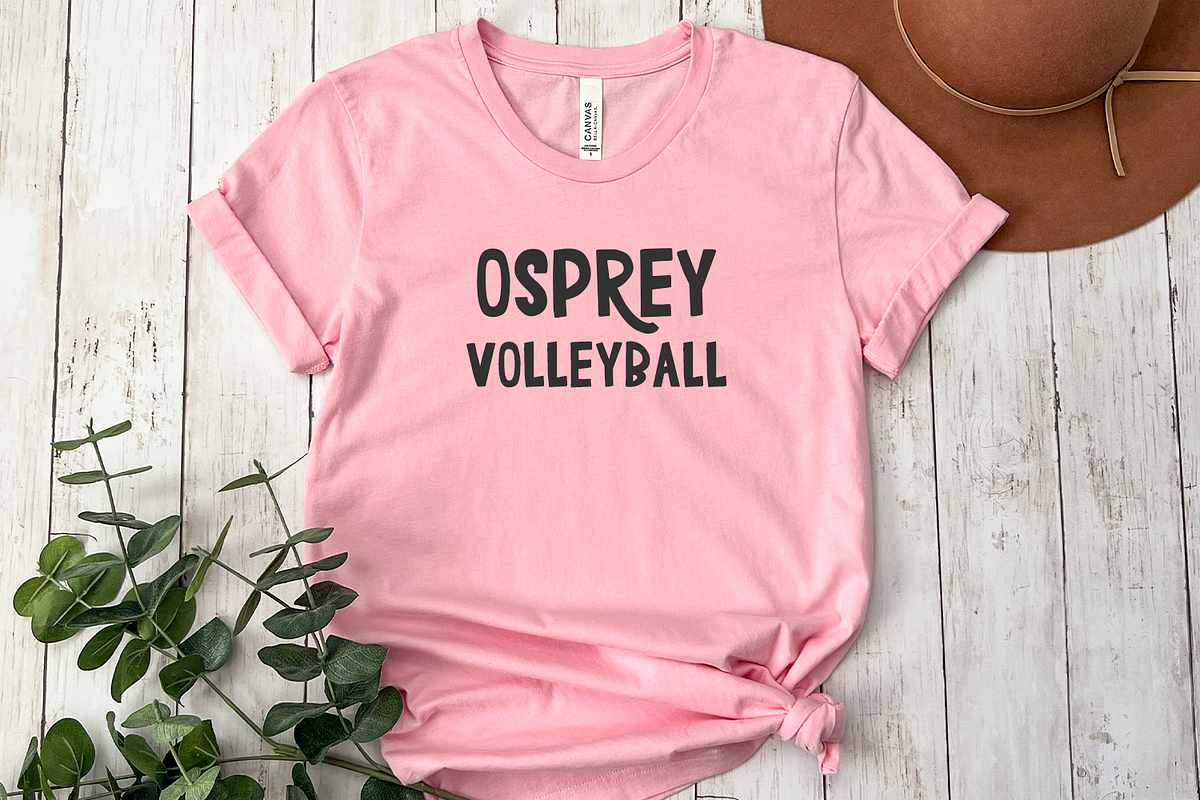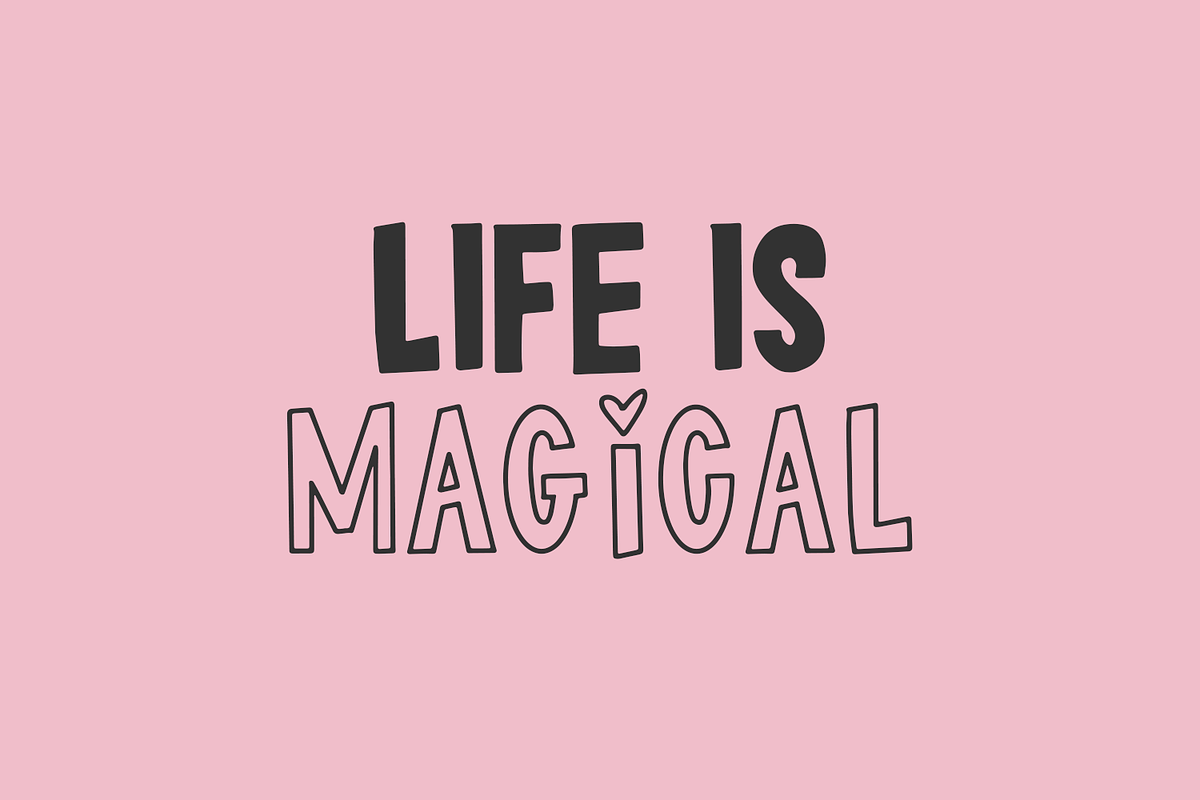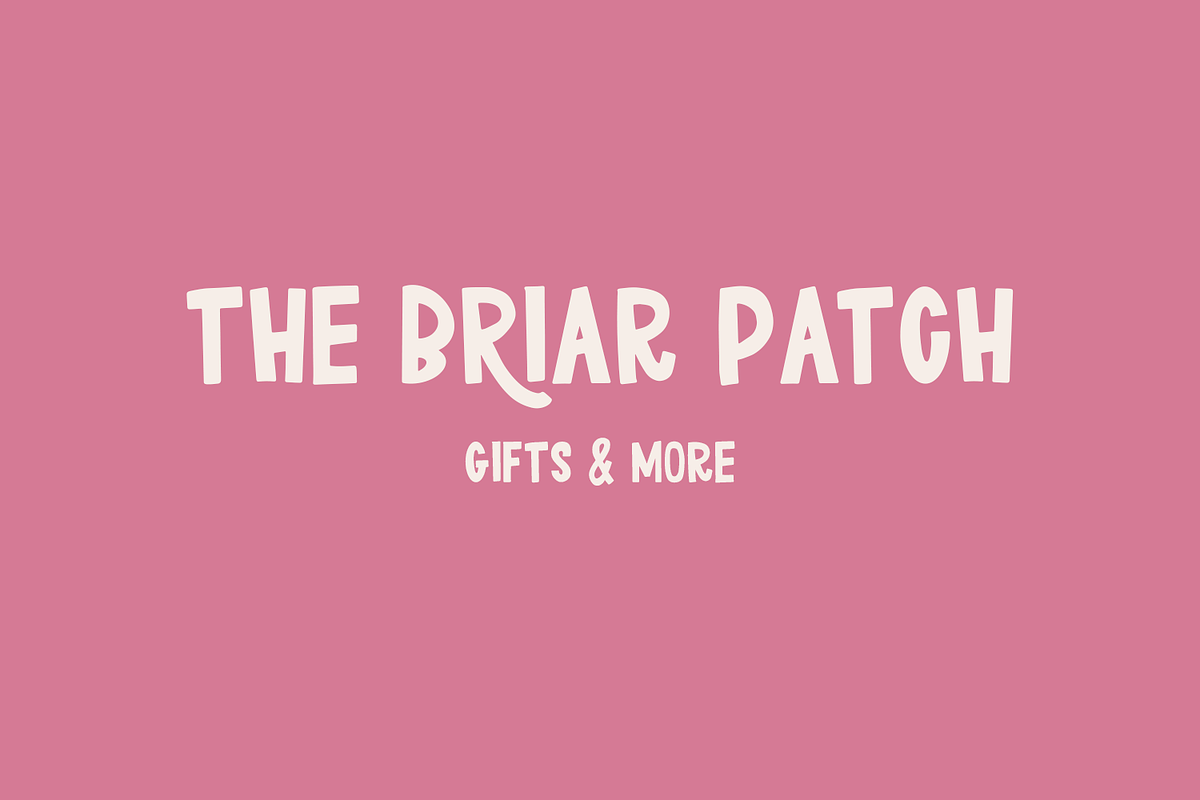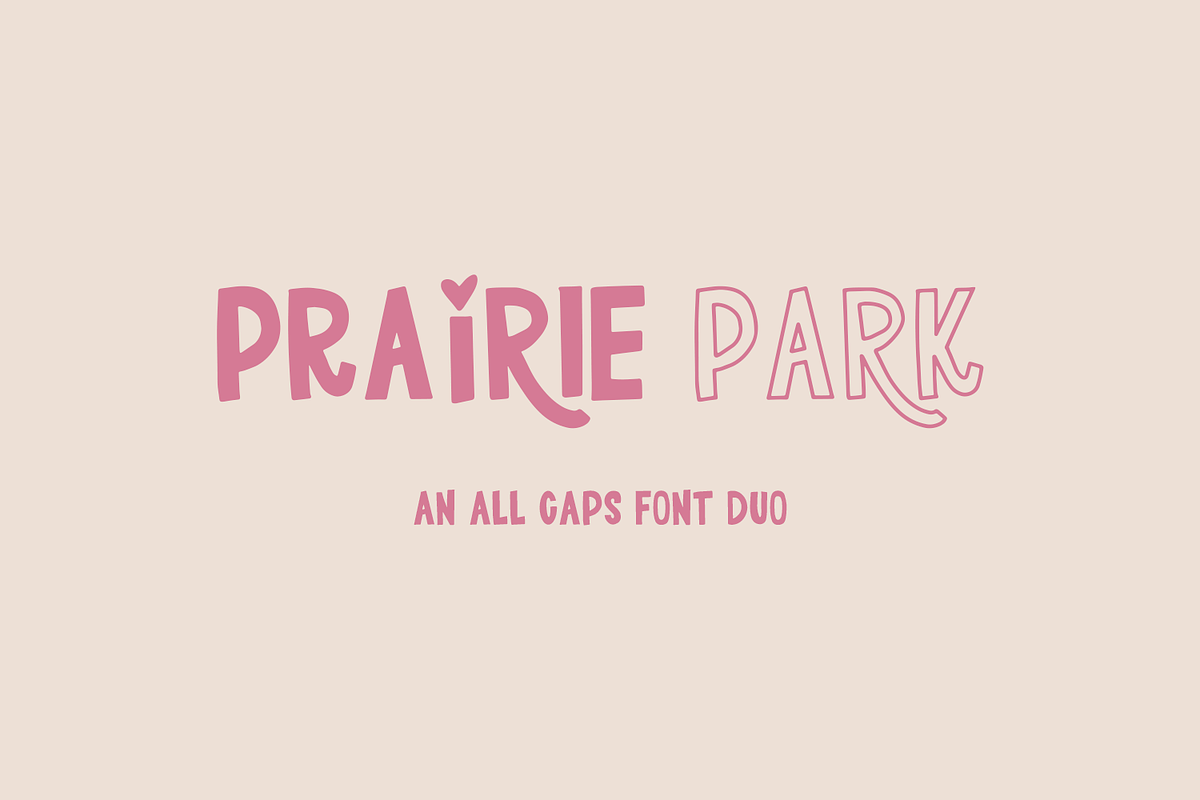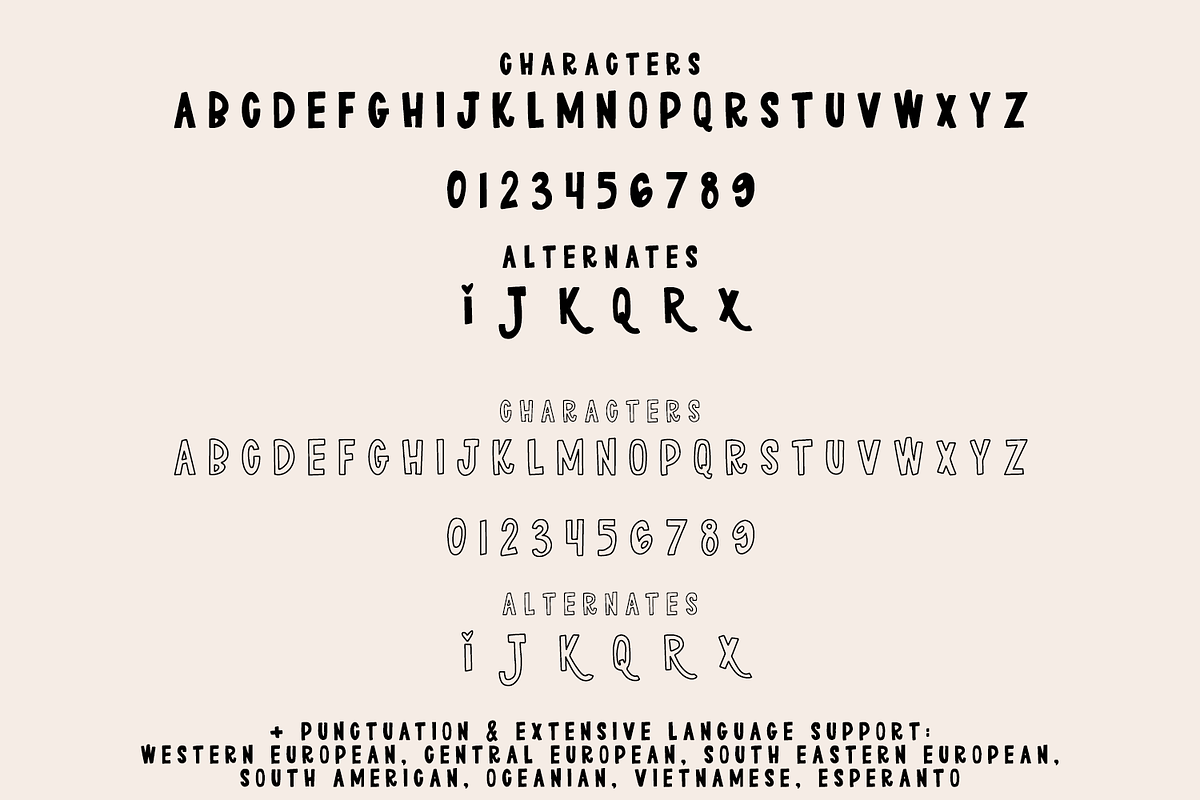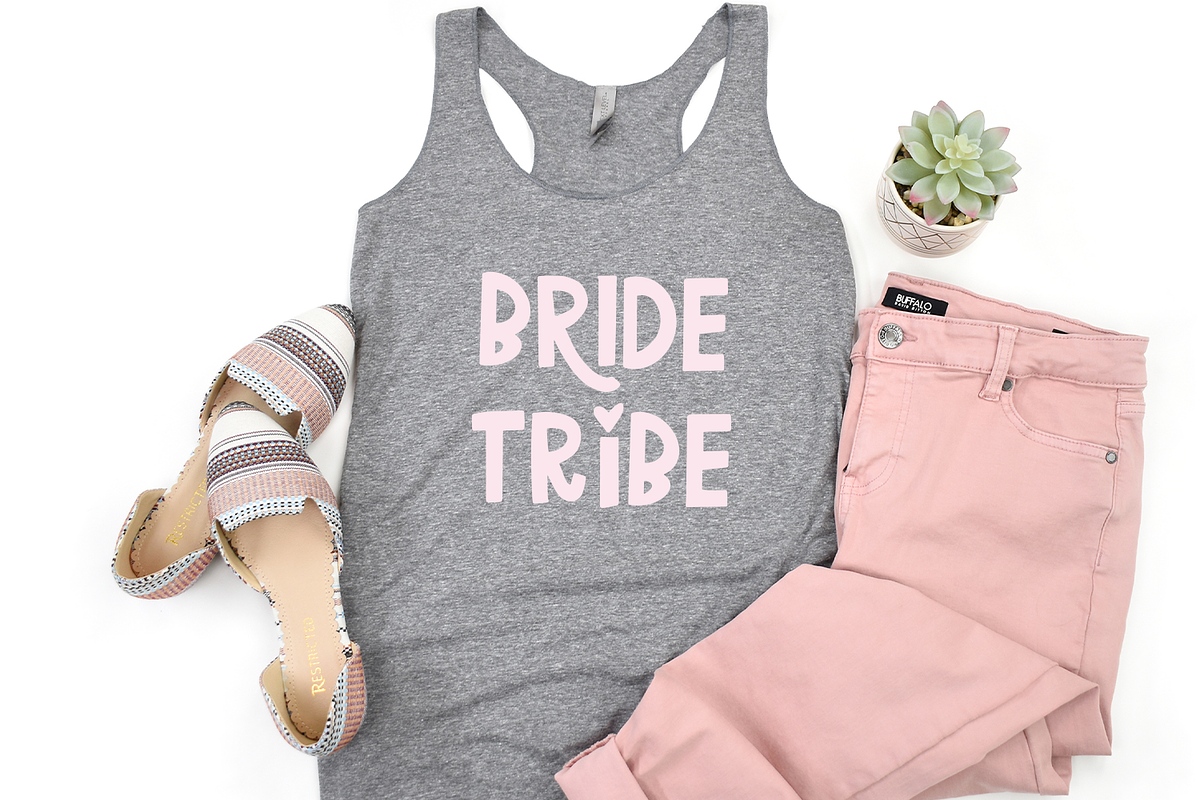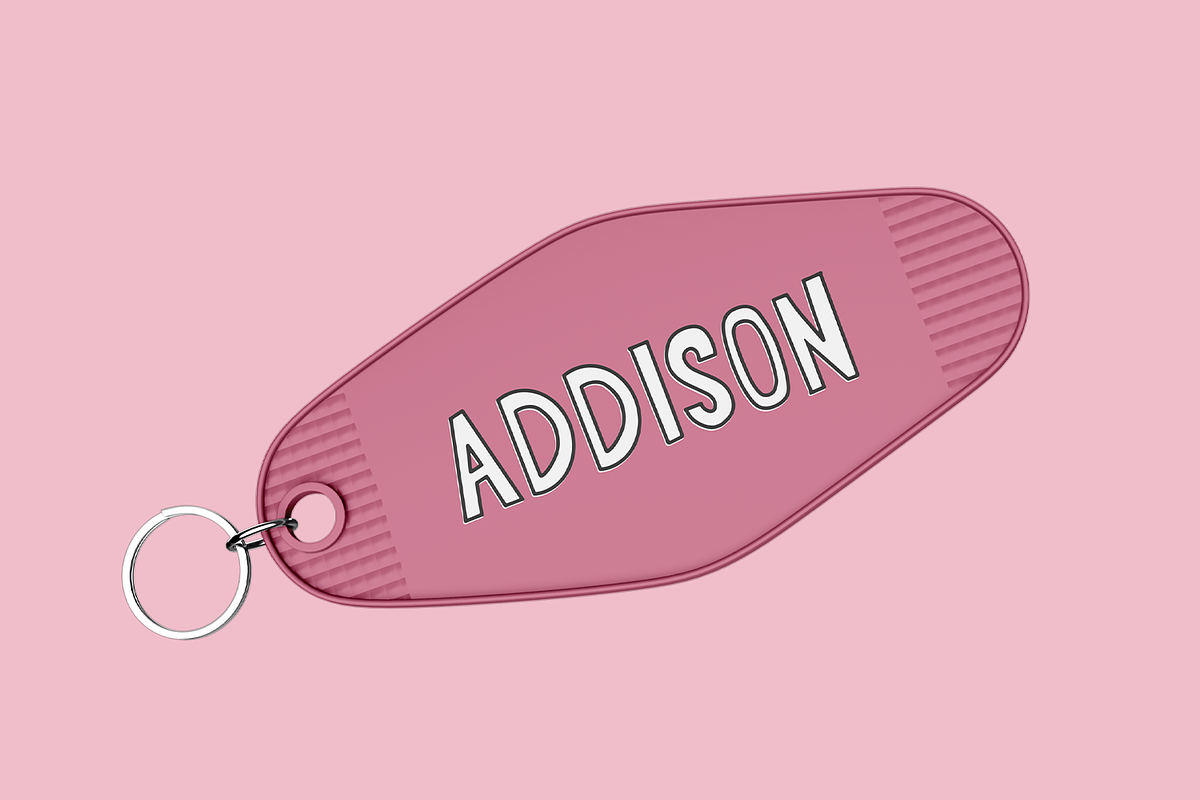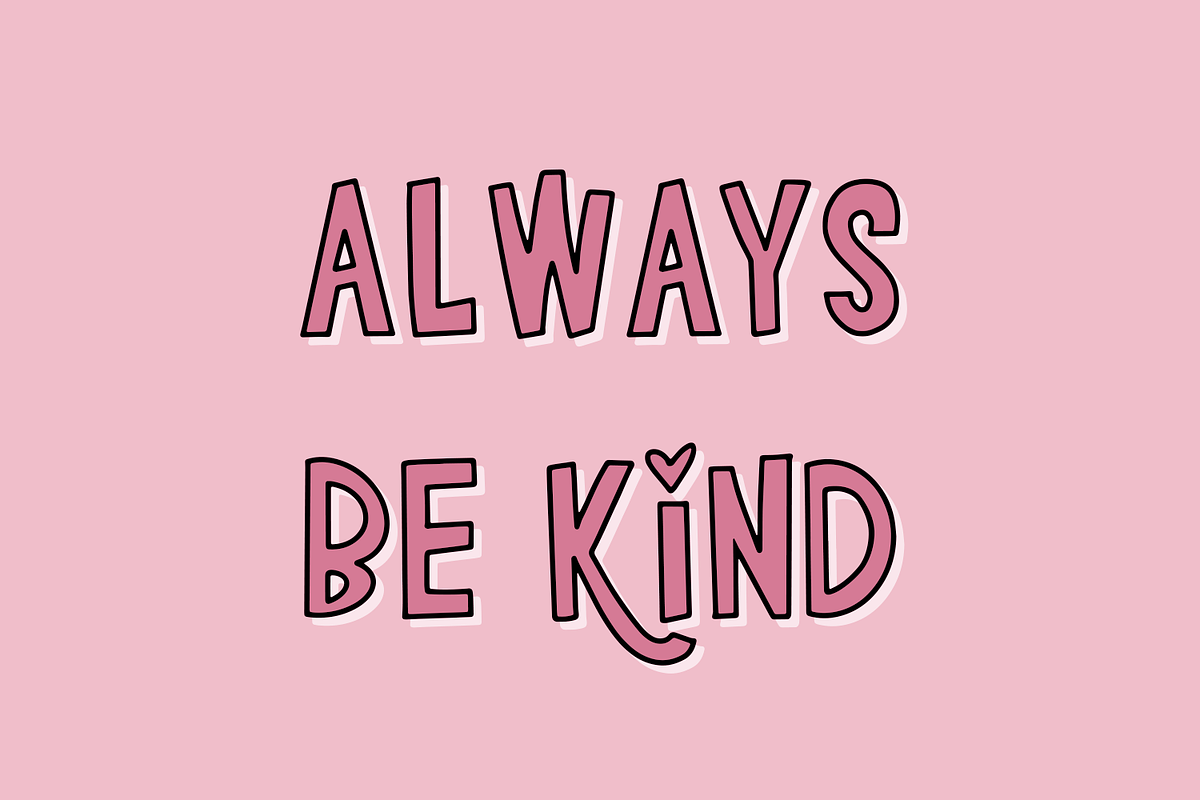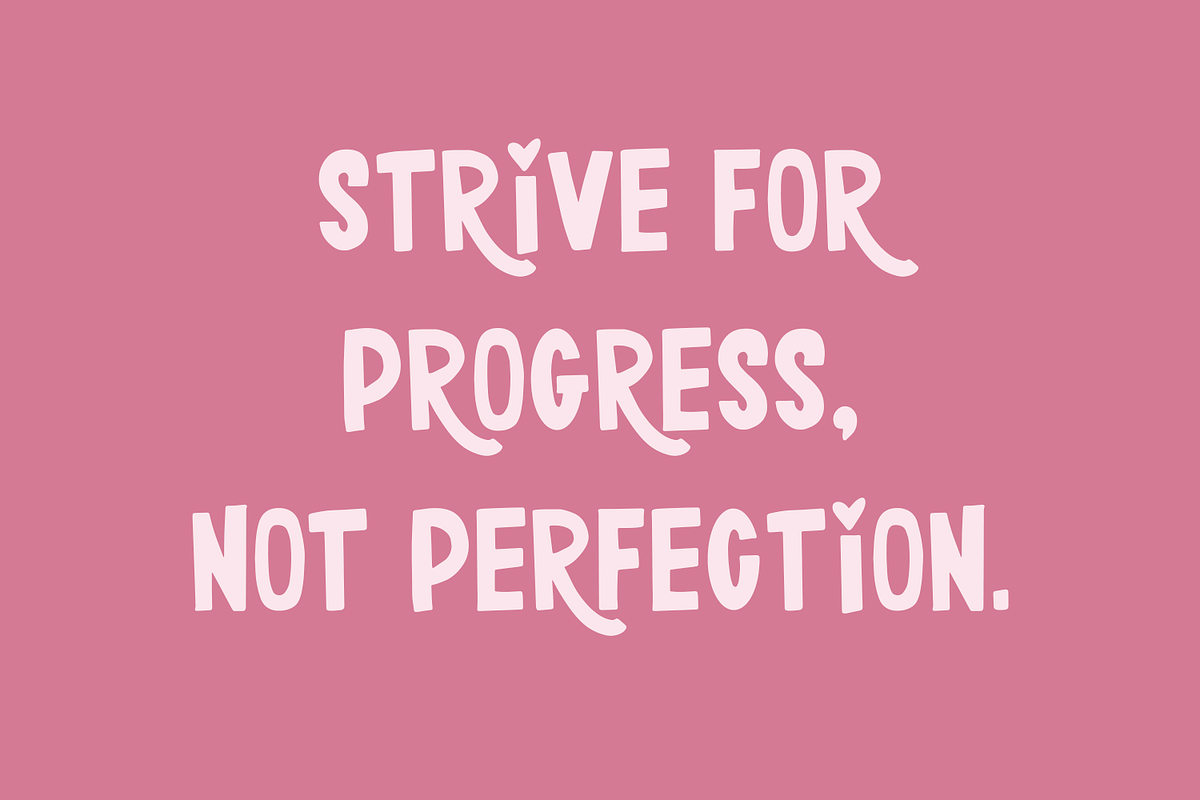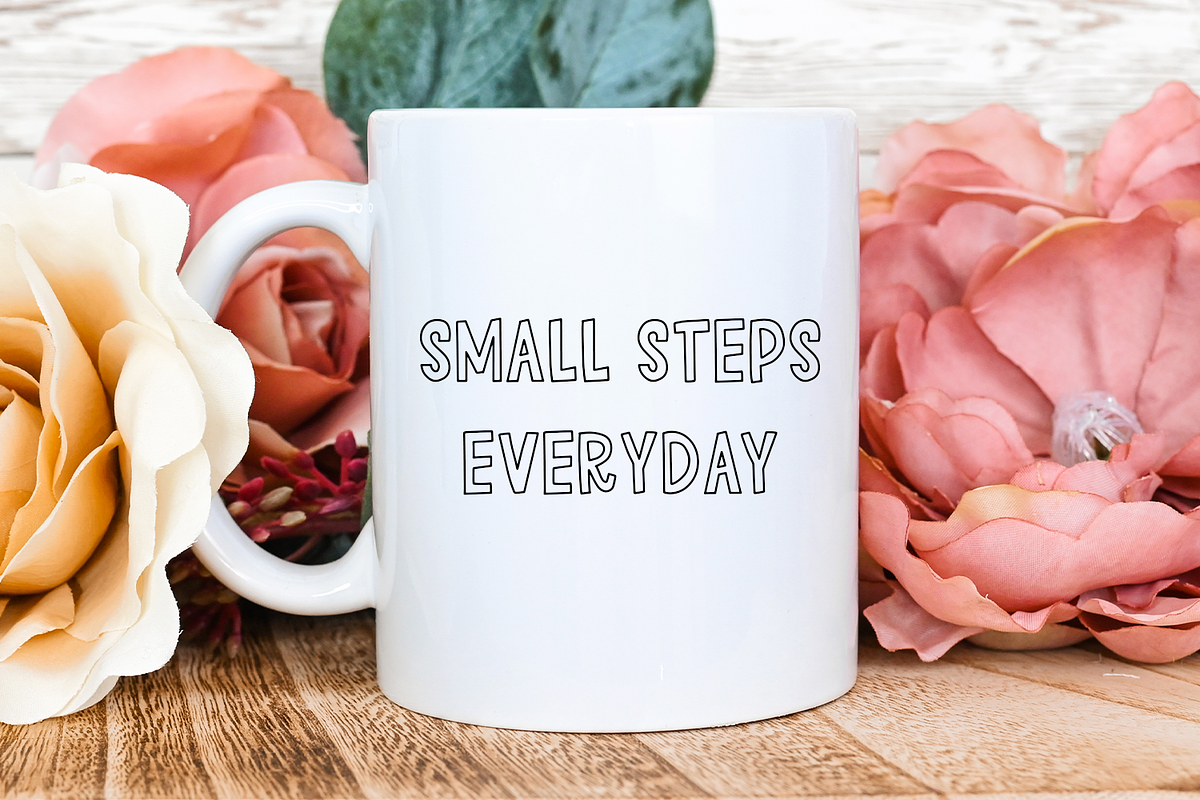
Prairie Park Sans Duo
Say hello to Prairie Park, a cute all-caps sans duo with a few alternate letters that add a fun touch to your creative project. Prairie Park is best for feminine crafty projects or SVG design businesses, farmhouse decor and crafts, logos, branding, marketing materials, social media graphics, or shirt design.
Prairie Park (solid + outline) includes:
- uppercase characters A-Z programmed into both upper & lowercase spots
- numbers 0-9
- punctuation
- 6 alternates - I, J, K, Q, R, X
Extensive Language Support: Western European, Central European, South Eastern European, South American, Oceanian, Vietnamese, Esperanto